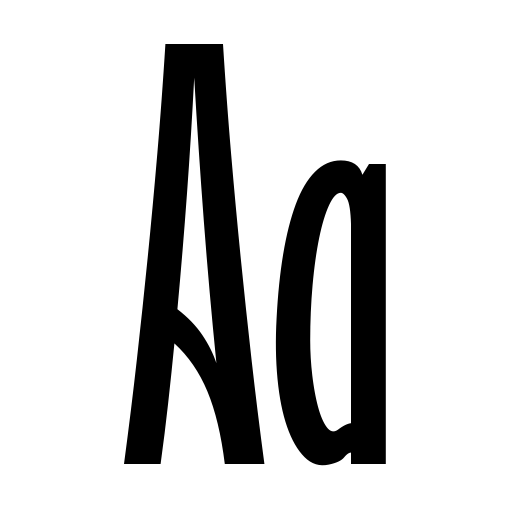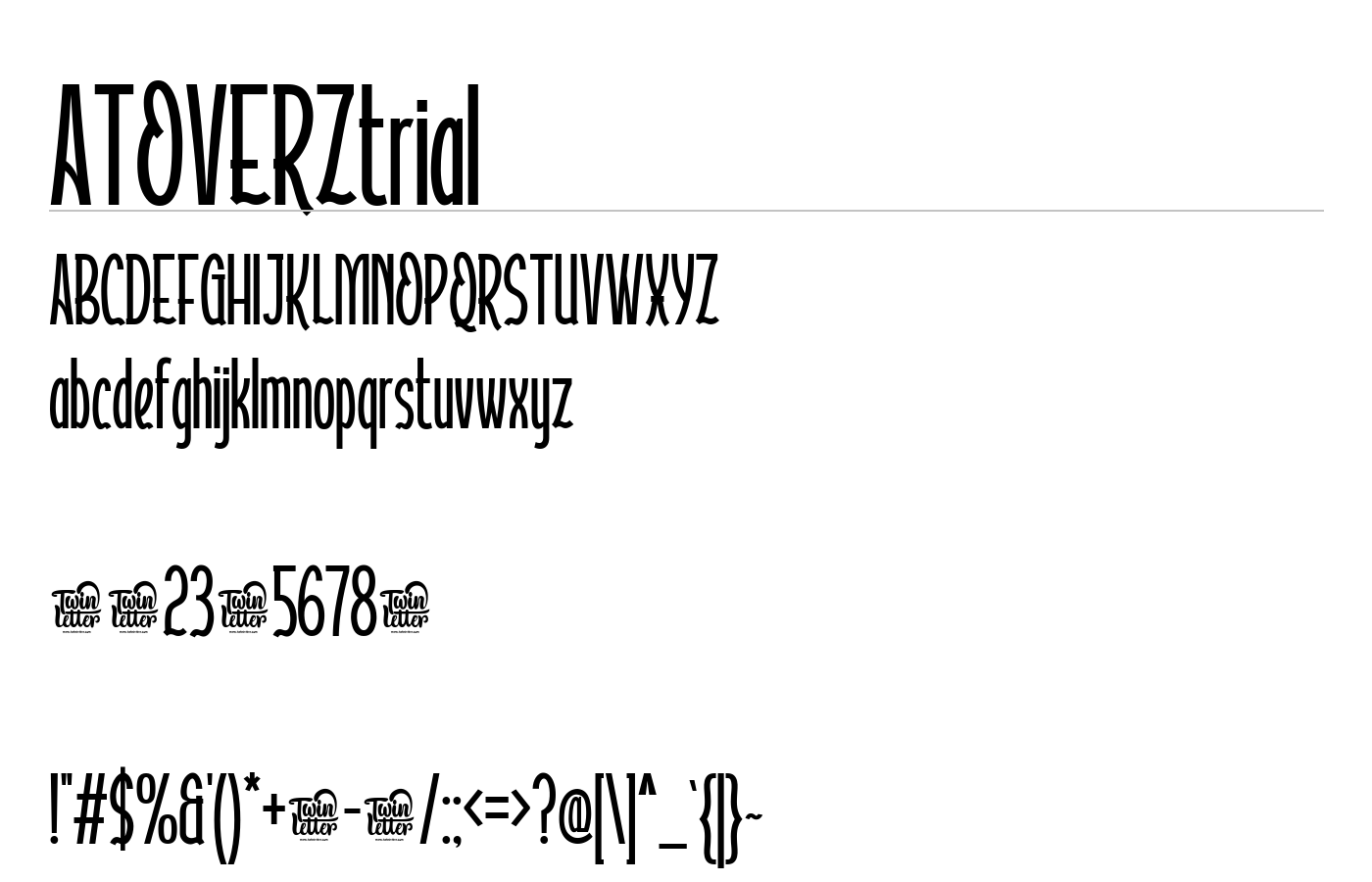
ATOOVERZtrial is a tall, narrow sans serif font with a playful and slightly quirky character. Its condensed letterforms feature unique, stylized shapes with irregular strokes and varied terminal designs, making it ideal for creative headlines or distinctive branding that seeks a modern yet artistic vibe. This font works well when you want to catch attention with a bold, unconventional look without sacrificing readability.
ATOVERZtrial Font
About ATOVERZtrial Font